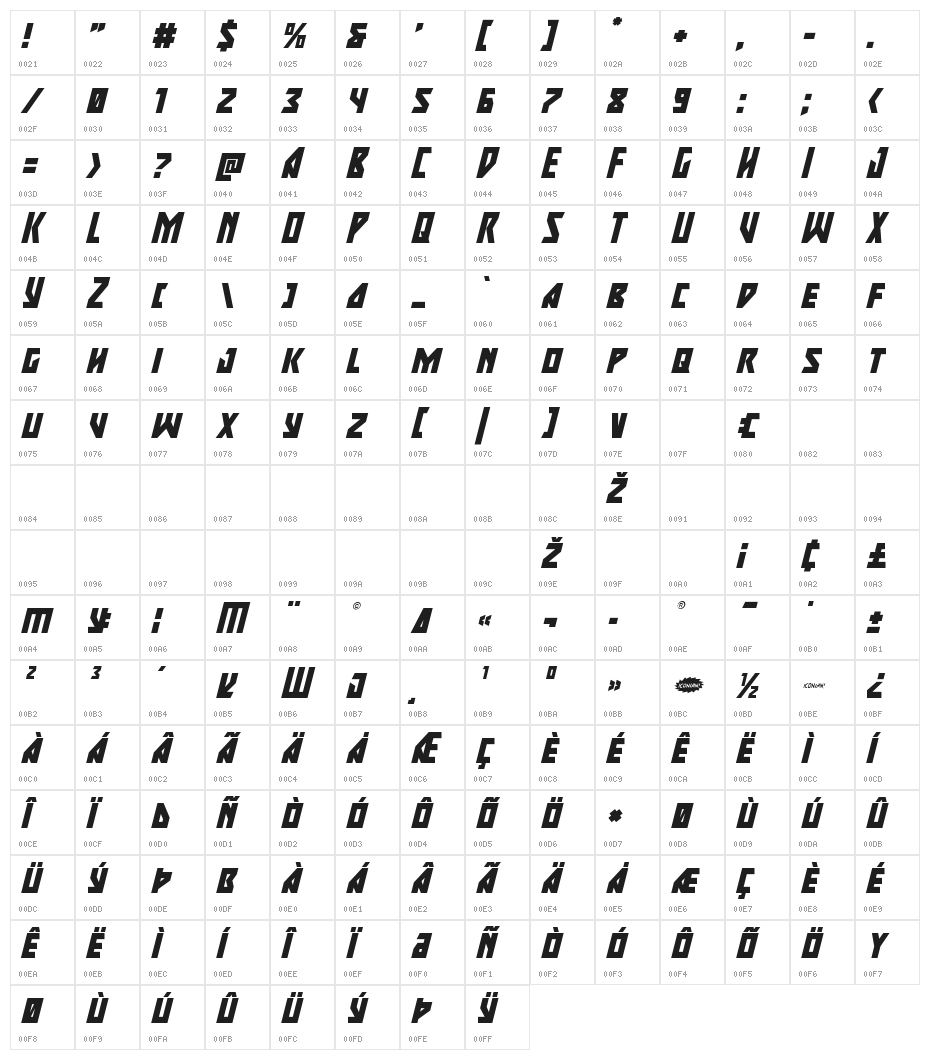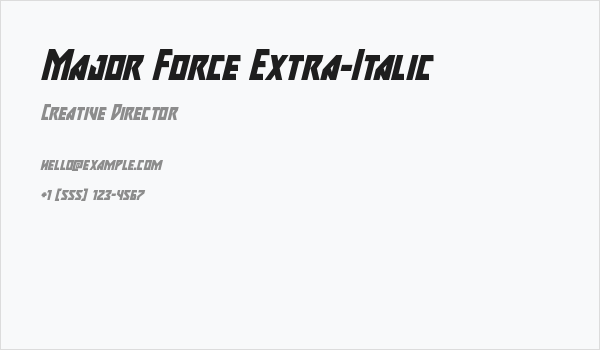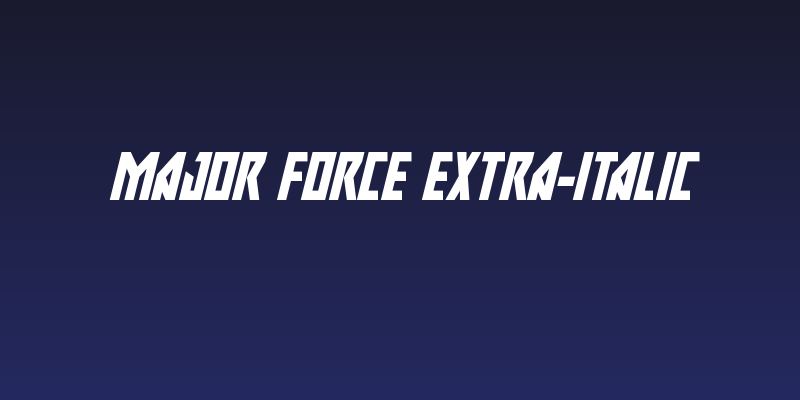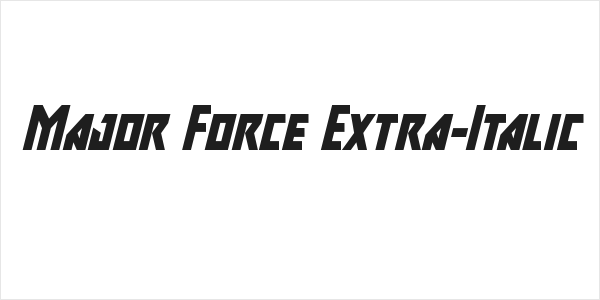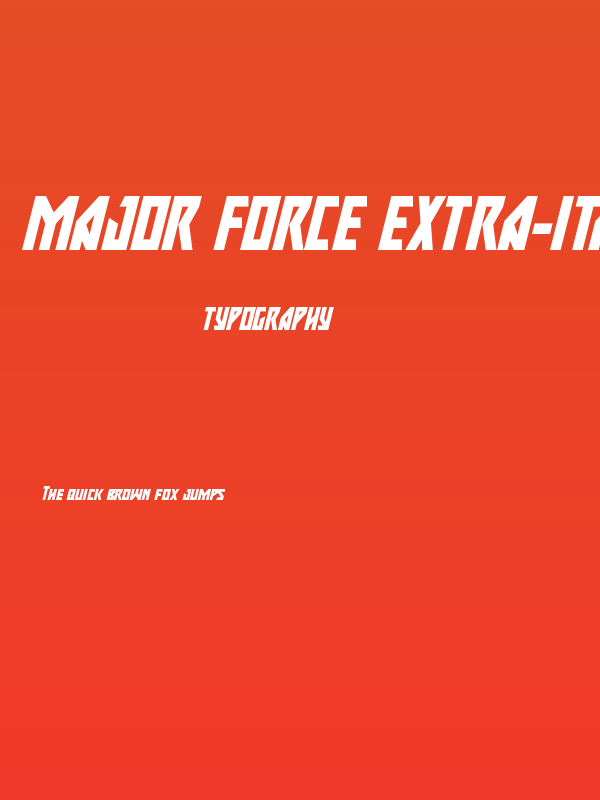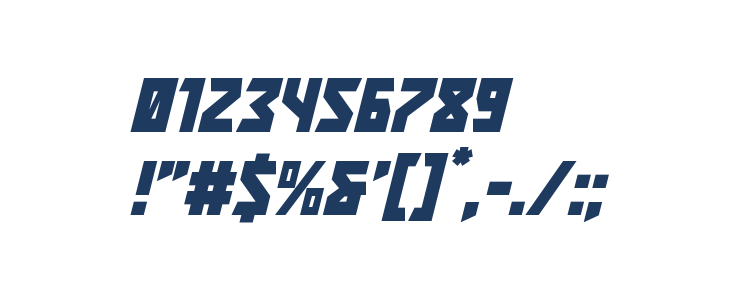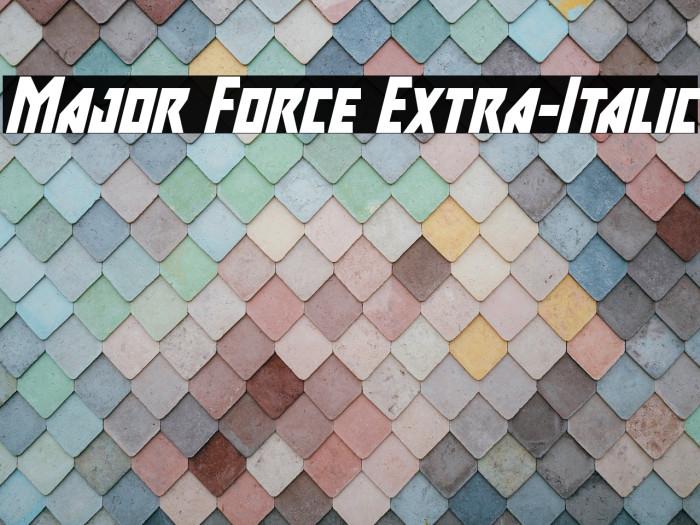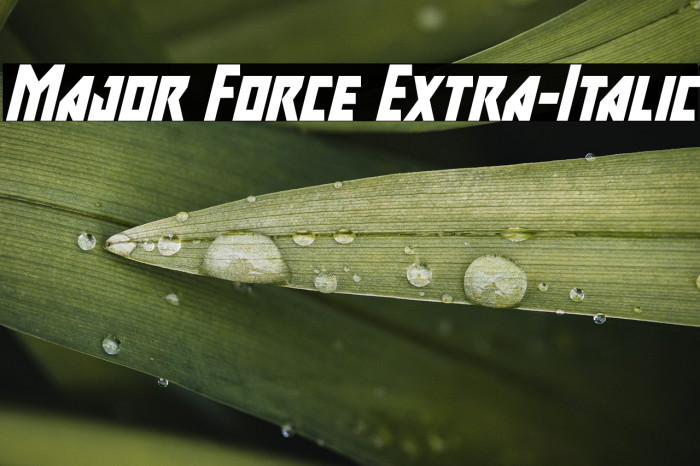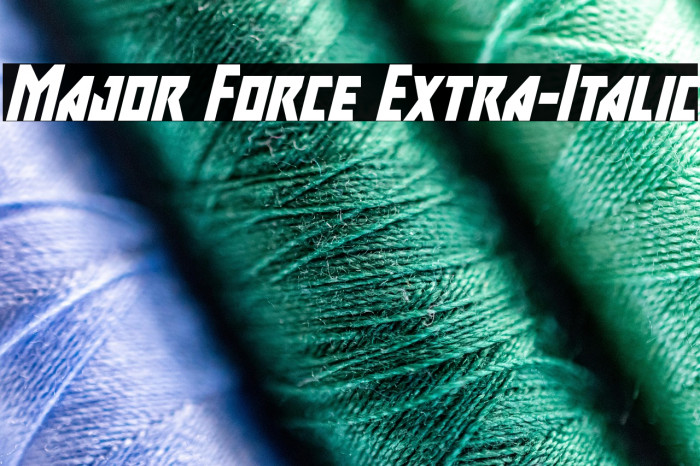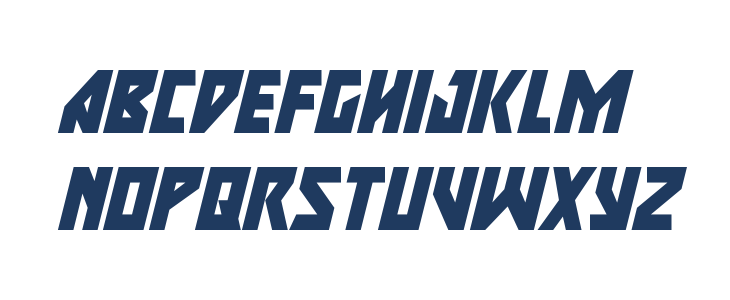
Major Force Extra-Italic Font
Major Force Extra-Italic Description
This font features a bold and dynamic design with sharp, angular edges and a strong italic slant. The characters are designed with a futuristic and aggressive style, making them stand out with their thick strokes and geometric shapes. The uppercase and lowercase letters maintain a consistent style, emphasizing a sense of movement and speed. Numbers and special characters follow the same bold and angular aesthetic, ensuring uniformity across all glyphs. The font's unique style is ideal for projects that require a modern and impactful look.
| Proposed Projects | Ideal for sports branding, video game titles, action movie posters, and dynamic logos. |